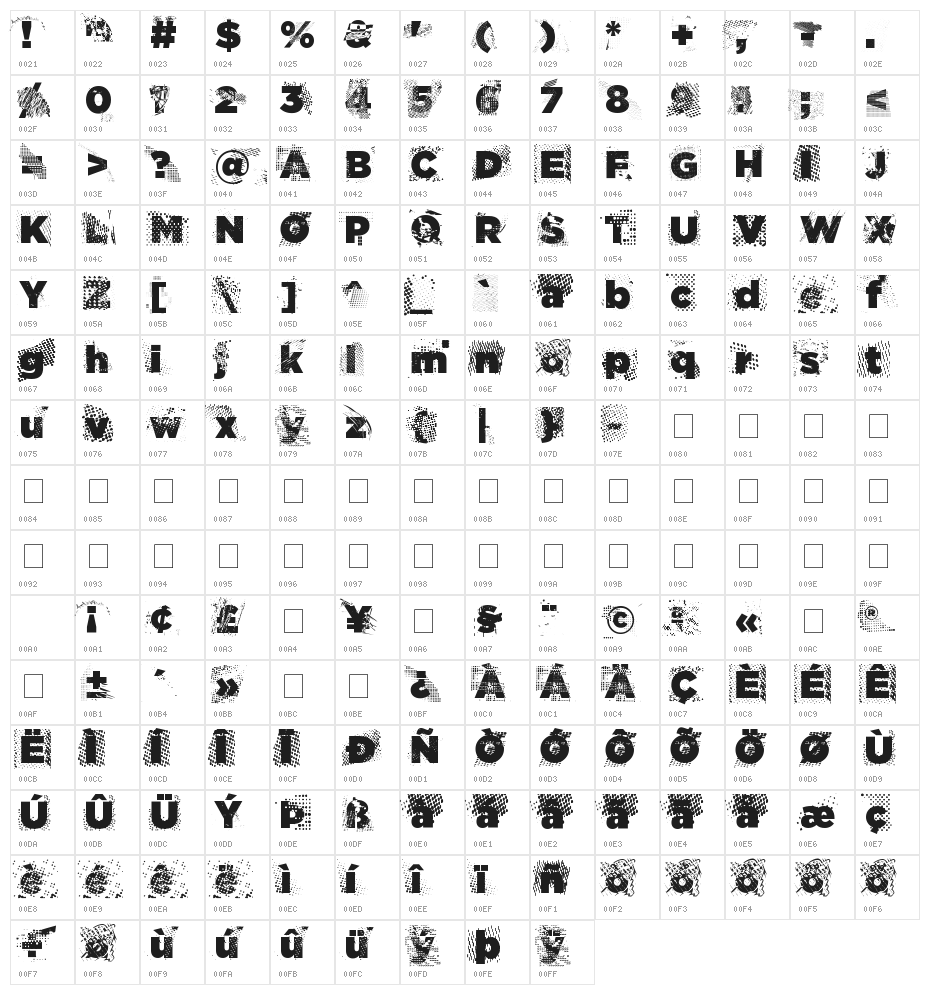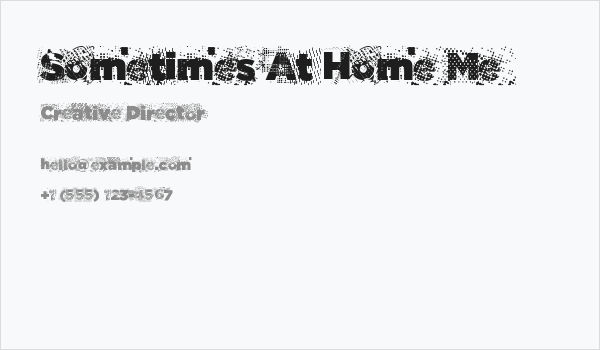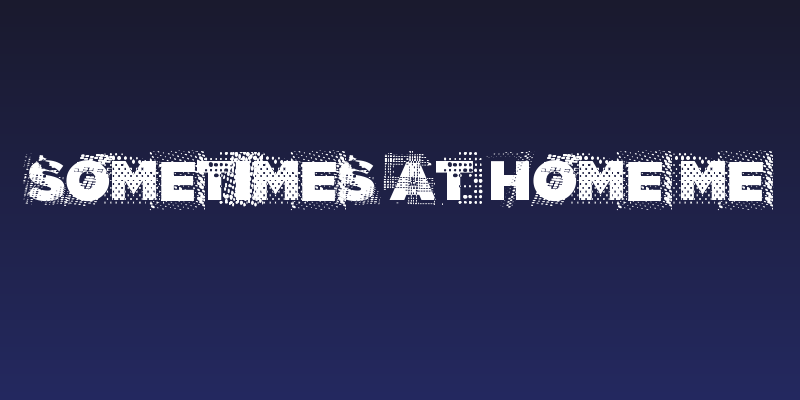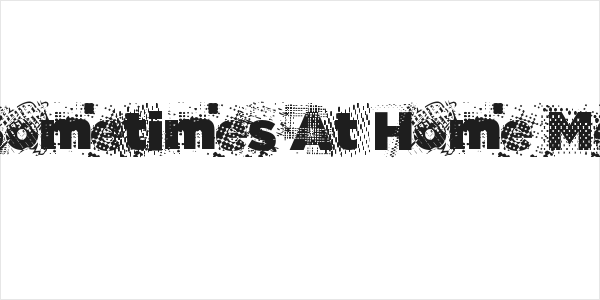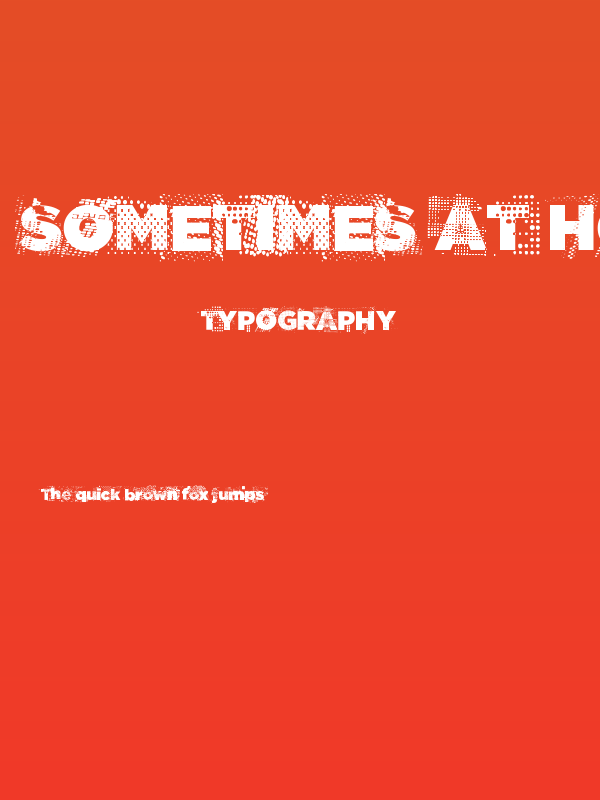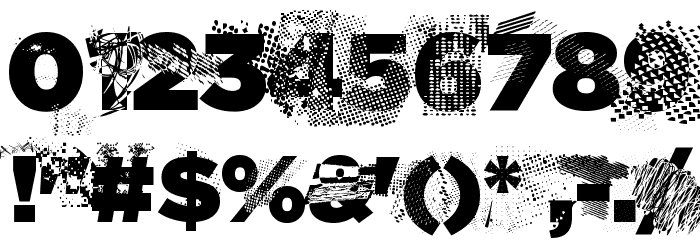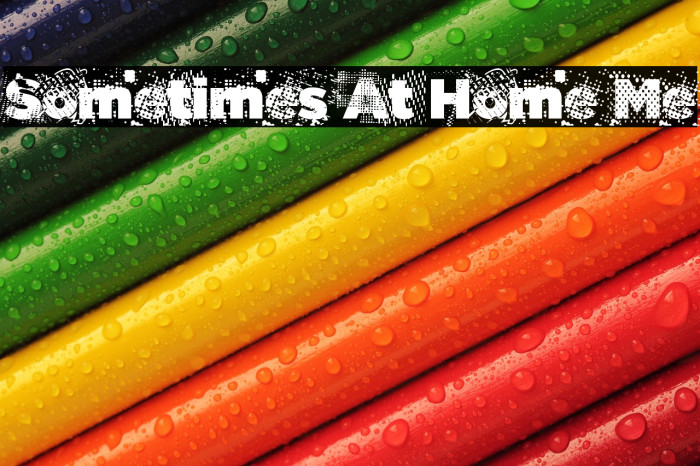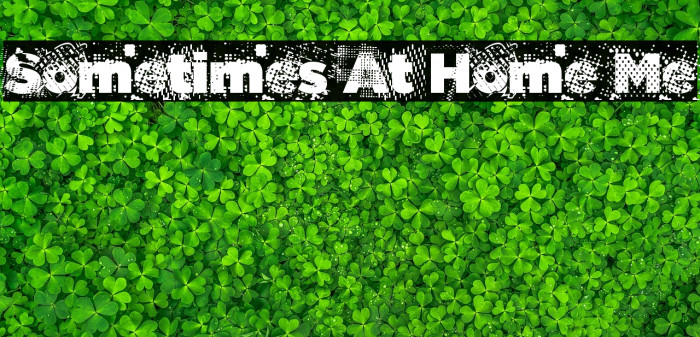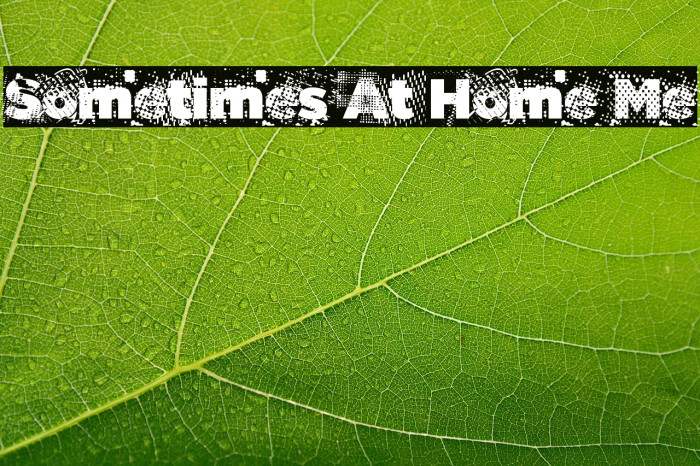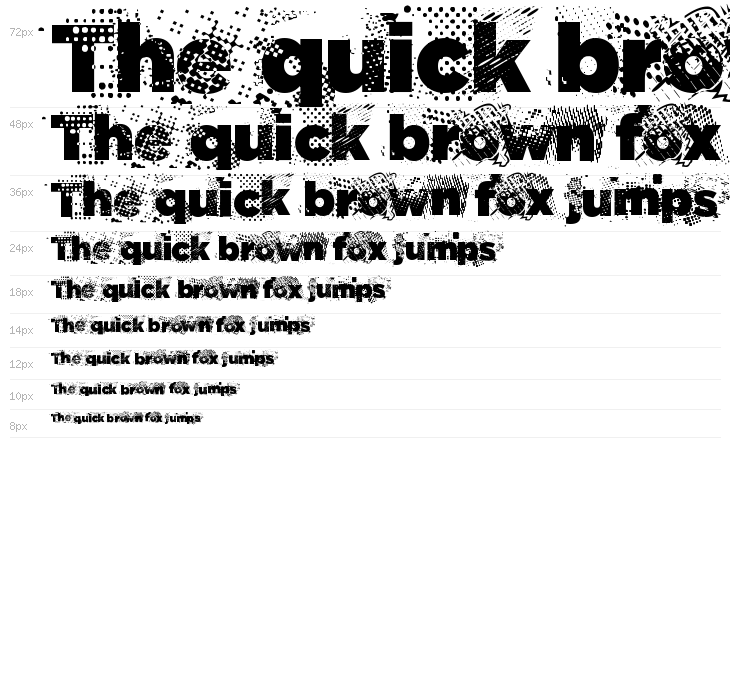
Sometimes At Home Me Font
Sometimes At Home Me Description
This font features a bold and dynamic design with a distressed, grunge-like texture overlaying each character. The letters are uppercase and lowercase, with numerals and special characters, all sharing a consistent, heavily textured appearance. The texture resembles a halftone pattern, giving the font a unique, edgy look. It is highly decorative and eye-catching, suitable for projects that require a strong visual impact. The boldness of the characters is complemented by the intricate texture, making it ideal for artistic and creative applications.
| Proposed Projects | Album covers, posters, street art, branding for edgy or alternative products, and any design requiring a bold statement. |